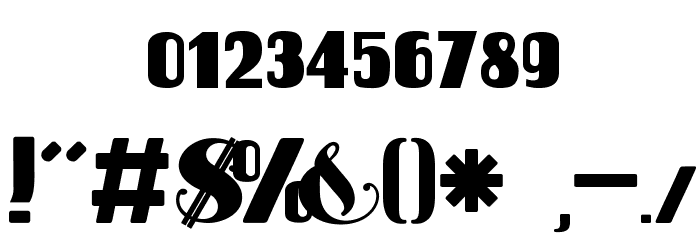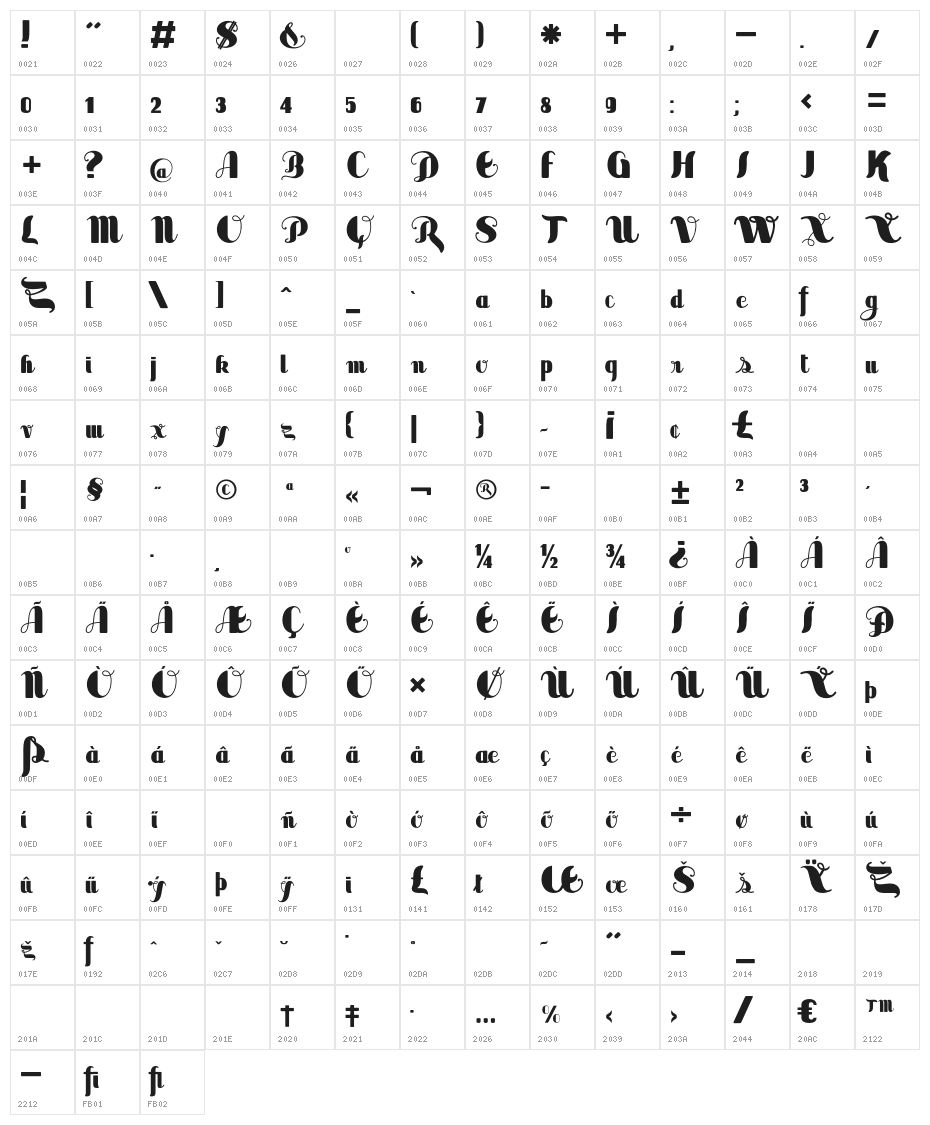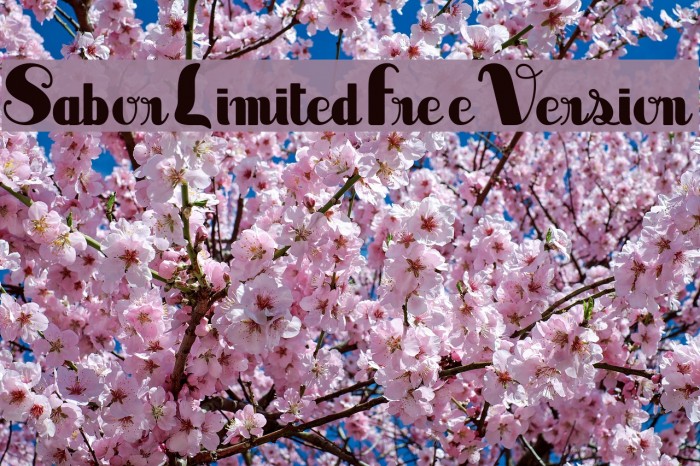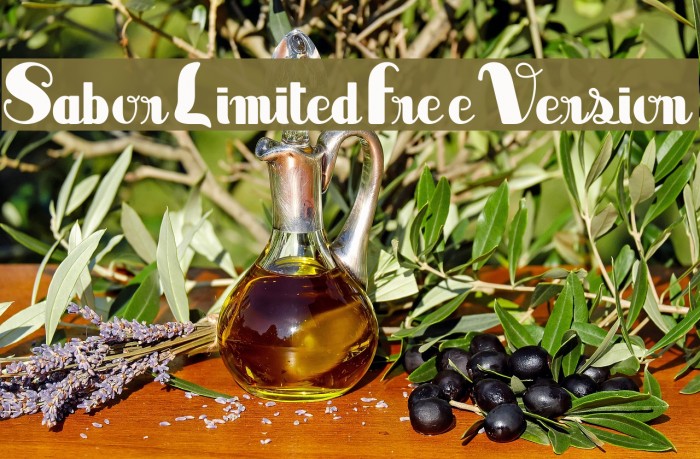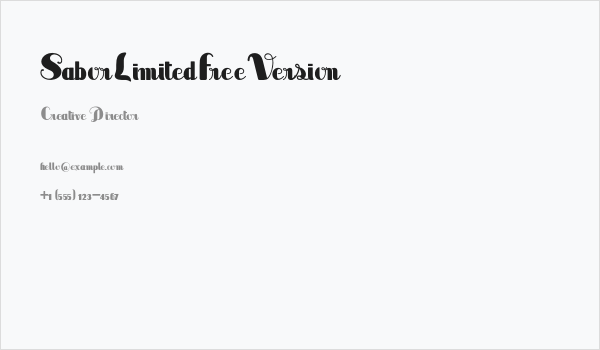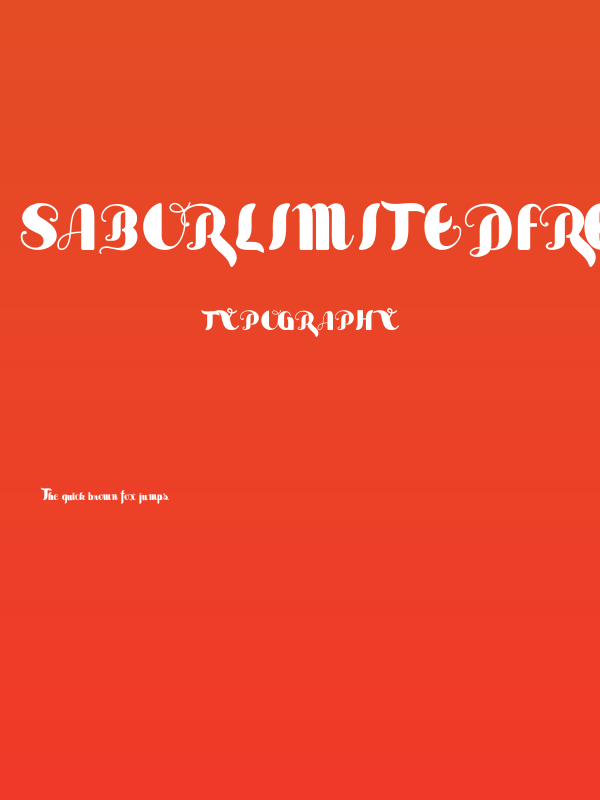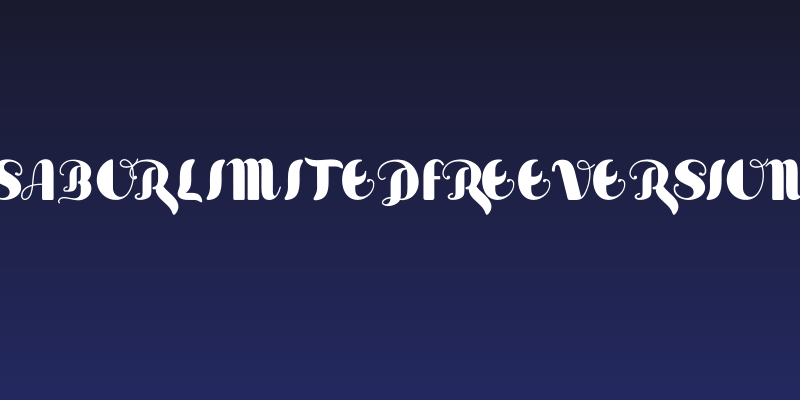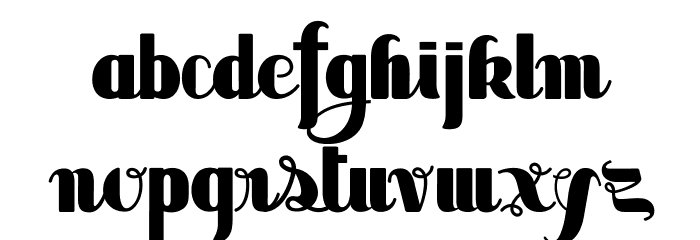
SaborLimitedFreeVersion Font
SaborLimitedFreeVersion Description
This font features a unique blend of bold, decorative elements with a modern twist. The uppercase letters exhibit a strong presence with thick strokes and intricate curves, giving them a distinctive and artistic flair. The lowercase letters maintain a similar style, with elegant loops and swashes that add a touch of sophistication. The numerals are bold and straightforward, ensuring readability while maintaining the overall aesthetic. Special characters are creatively designed, incorporating the same decorative elements that make this font stand out. The combination of thick and thin strokes throughout the characters creates a high contrast, enhancing the visual impact.